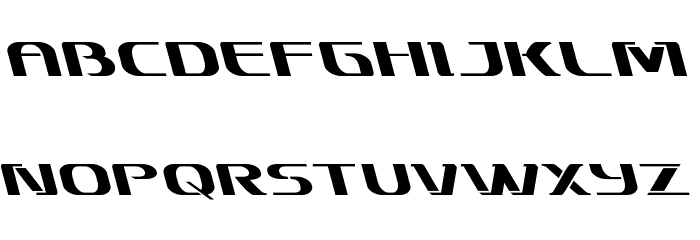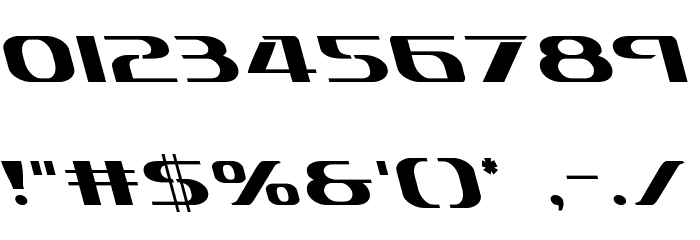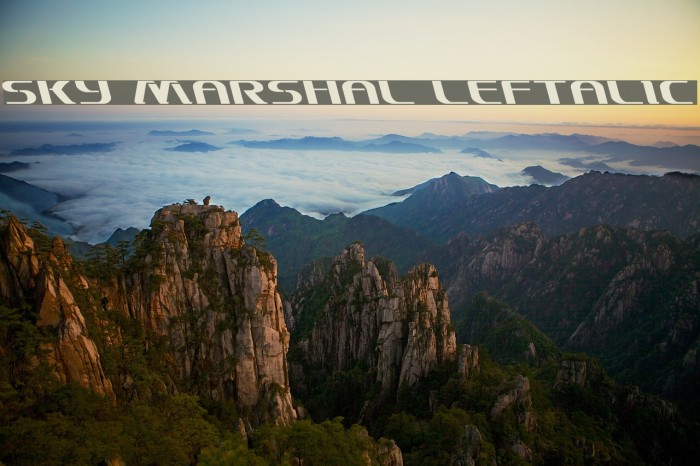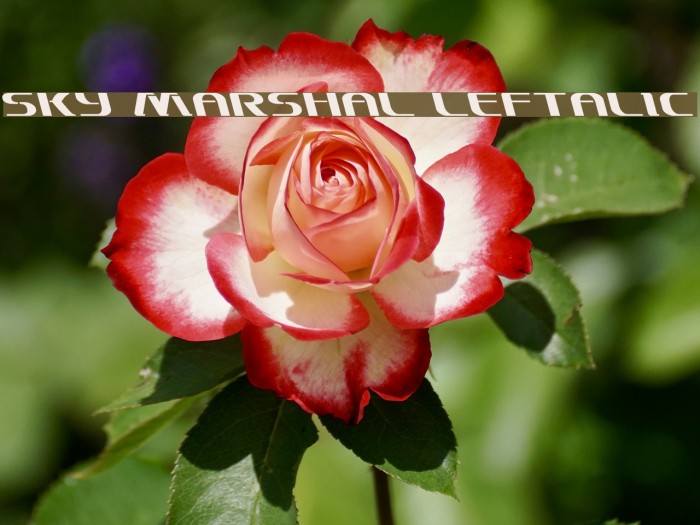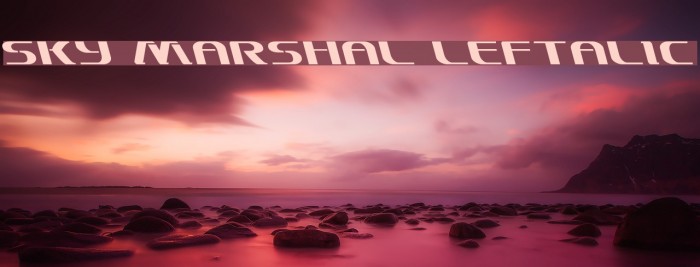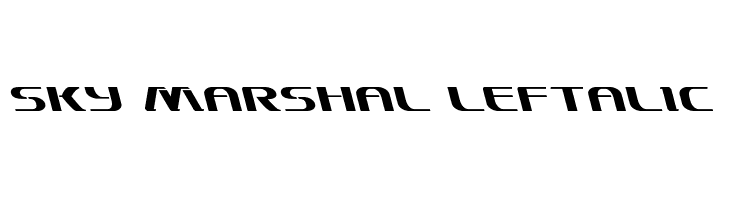
Sky Marshal Leftalic Font
This font features a futuristic and angular design, characterized by sharp edges and a distinct slant to the left. The uppercase letters are bold and dynamic, with a consistent geometric style that gives a sense of movement and speed. The lowercase letters maintain the same angular aesthetic, ensuring uniformity across the typeface. Numbers and special characters are crafted with the same attention to detail, making them easily recognizable and visually cohesive. The overall appearance is sleek and modern, suitable for projects that require a cutting-edge and innovative look.
A futuristic, angular font with a bold, leftward slant.
- Proposed Projects: Ideal for sci-fi themed designs, technology branding, video game interfaces, and modern advertising.